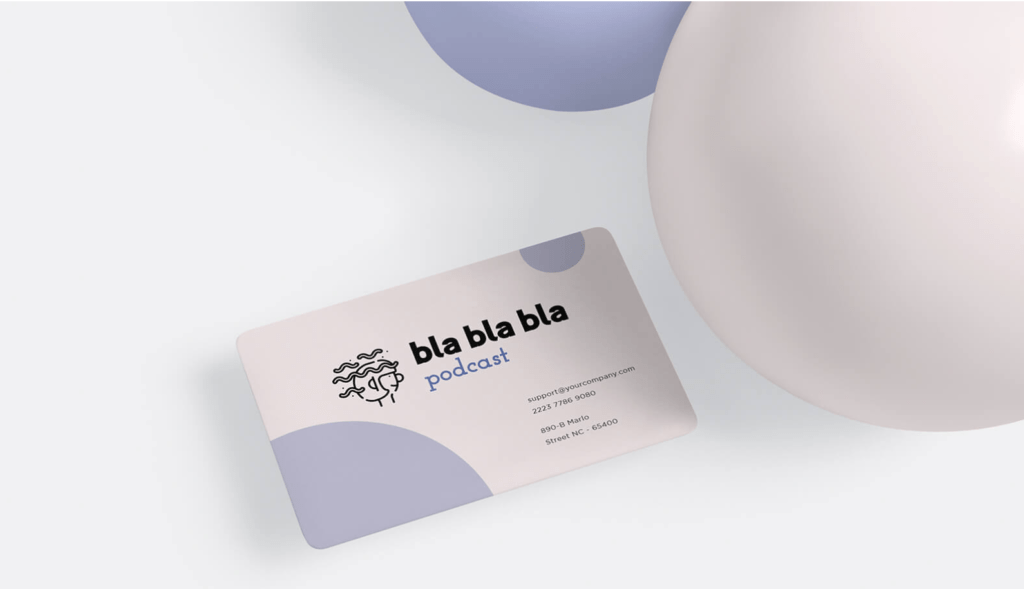
1. Pair Two Fonts From the Same Font Family
If you want to make font-pairing easier on yourself, this is the way to go.
Font families (serif, sans serif, slab serif, script, and decorative) were created as a way to classify fonts that are meant to complement each other. Sticking with fonts from the same family not only helps you narrow down your font choices but also ensures you have a cohesive look across your design. The Night Owl logo has the cohesive look nailed down!
Fonts can elicit emotional and psychological reactions, as well as create associations with a brand. That’s why when you choose a font family, you should first understand what each one means and the industry it’s most used in.
You should look out for a font family that has varying style options; look for a range of weights (thickness or thinness of letters), sizes, and cases (uppercase or lowercase).
2. A Chunky Font Pairs Well With a Skinnier One
In general, fonts pair well together when there’s a significant amount of contrast between them. Here, font weight (i.e., thickness or thinness of letters) is the point of contrast. Stout, chunky fonts often work well with tall, skinny ones.
This is because it’s easy for the viewer to distinguish between the 2 fonts, and understand that each plays a different role in the document or project. Both carry their weight (ha!) while serving different purposes – creating a complimentary design overall.
Just like with Bla Bla Bla Podcast logo, you can use a thick and thin font weight to achieve contrast in logo design. Not only does this help draw your eye to the design, but it also helps create a visual hierarchy with the “bla bla bla” part taking prominence over “podcast.” Visual hierarchy is the principle of arranging elements in a design to point out the order of importance.
3. Try Tight Kerning With Looser Kerning
Kerning, in design terms, refers to the spacing between characters in a font. This is another great way to differentiate sections of your text, creating a hierarchy between fonts and showing your readers that they are looking at two distinct parts of a document.
Be creative, but don’t be too creative – a large amount of text with really loose kerning, for example, may cause a reader to lose interest, while too much tight kerning could make the text look like it’s overstuffed. Don’t be afraid to play around with the sizing of the text to help find a good balance.
Choosing font pairs that change up the spacing, on the other hand, will help balance out the piece.
4. Two Fonts With Complementary Moods
While this is more of a subjective call, there’s something rather intuitive about the way fonts feel when we look at them. You know what reads as professional and what comes off as funky or even just plain silly.
For example, the font you’d use for a child’s birthday party invitation (perhaps a rounded, bubbly typeface) isn’t going to have the same feeling as the one used to head a business proposal.
As you think about pairing fonts, pick ones that have similar vibes like Heavy Routine Fitness Center’s logo.
5. Use Serif and Sans Serif Together
Serif fonts like Times New Roman have decorative flourishes or “feet” at the end of strokes. Sans serif fonts, such as Arial, are a category of typefaces without those flourishes.
Pairing serifs and sans serifs is a classic and easy way to create balance in your logo design while having enough contrast to differentiate between the different parts of your logo.
However, you’ll still want to make sure that the serif and sans serif pair you choose have different weights and overall styles, so that the fonts don’t come across as too similar (see tip #9).
In this Book Club logo, the serif gives “book” a refined, sophisticated touch, while the sans serif balances it with a clean and intriguing vibe (bonus points for the perfectly spaced kerning!).
6. Try a Traditional Heading with a Decorative Body
Remember when I talked about visual hierarchy (hint: Tip 2)? Well, in logo design, it’s a good idea to pair fonts according to the role they’ll play or their level in the hierarchy.
Headings are usually meant to attract the most attention and often claim the font with the largest size and most weight. They also set the tone for your brand since it’s usually the first thing the eye is drawn to.
In the case of Mystic Theory Beauty, using a traditional font in the heading tells their audience they’re to expect a reliable, modern brand. By using a script body font, the 2 contrast and create a visually appealing effect.
7. Use a Decorative Heading with a More Traditional Body
If you’re looking to convey fun or lightheartedness through your logo, a decorative heading and traditional body will set that tone. The decorative heading will come off as relaxed, and the traditional body will relay a more professional impression
Not sure if you noticed that this is tip 6 reversed (keeping you on your toes!). The point is that changing up the font between the header and body text can create contrast that takes your logo up a notch. However, if decorative and traditional fonts don’t suit your logo design, no worries—there are plenty of font combinations you should try.
Over to You